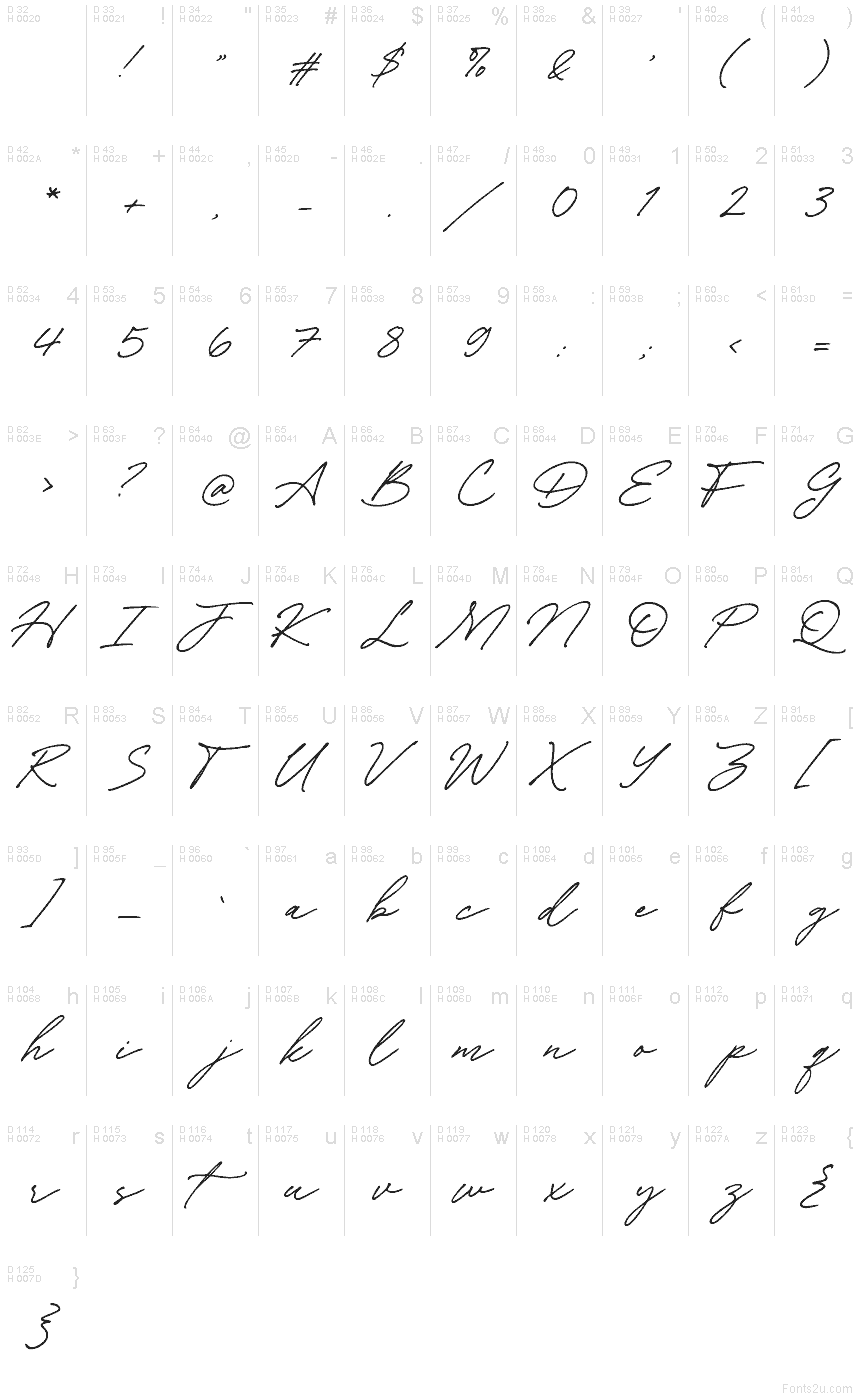
Aventine-Regular
Aventine font by Lunas Type focuses on expressing all of your peaceful feelings with its designs. The handwritten light font maintains a casual tone, combining simplicity with elegance from characters that will be the perfect addition to every special occasion, both for businesses and personal projects.
Create branded stationery items, greeting cards for holidays and family occasions, printed gift boxes and wrapping paper for shops, DIY projects for bullet journals, or website headlines and body texts. This free handwritten font is also ideal for designs centered around delicate themes like cosmetics ads. Use it to add branding to professional high-end products designs or a minimalistic logotype.